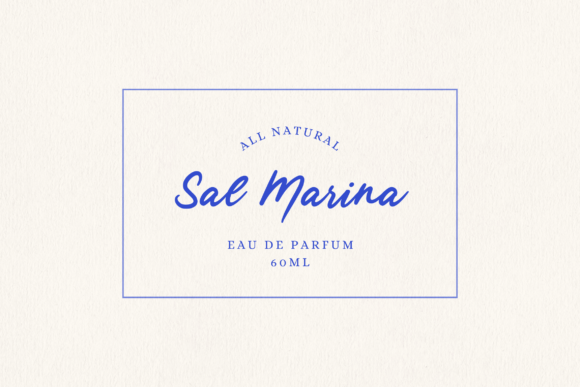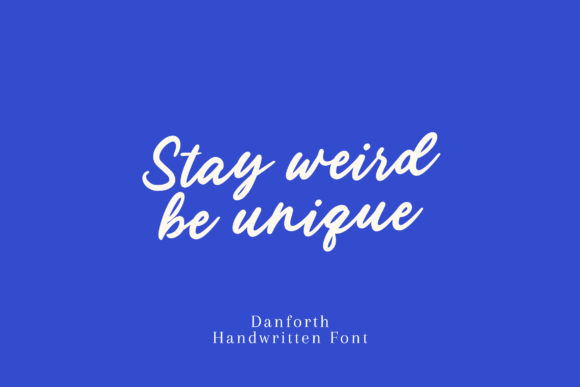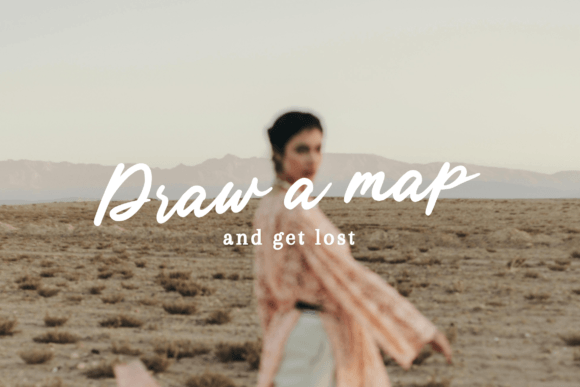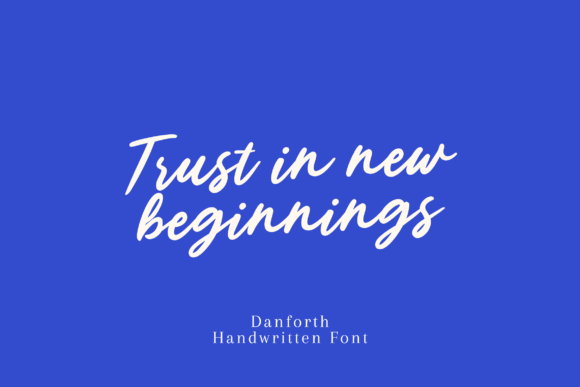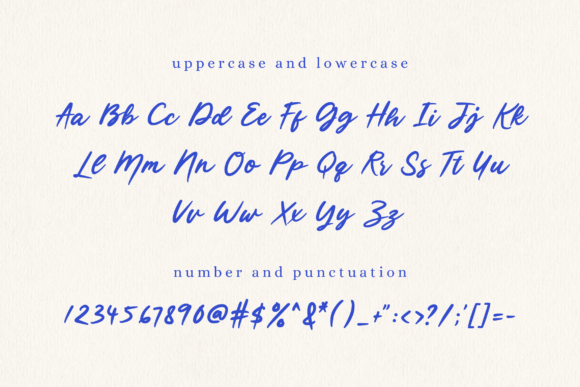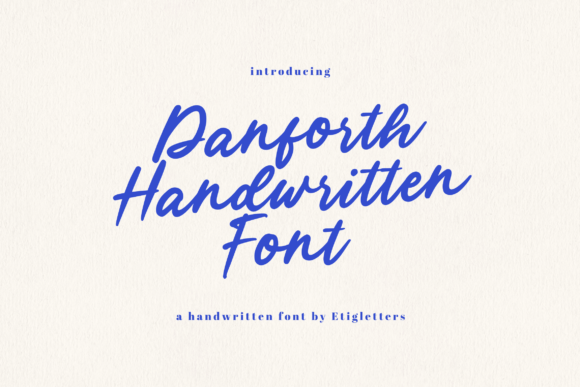
Introducing Danforth Font: The Sweet and Friendly Handwritten Font
Are you a designer or crafter looking for a font that can add a personal touch to your projects? Look no further than Danforth Font! This sweet and friendly handwritten font is perfect for a wide range of designs, from invitations and greeting cards to branding and packaging. With its natural and unique style, Danforth Font is sure to make your projects stand out.
The Characteristics of Danforth Font
Danforth Font is a handwritten font that exudes warmth and friendliness. Its natural and unique style makes it incredibly fitting to a large pool of designs. The font features:
• Handwritten style: Danforth Font has a genuine handwritten look that adds a personal touch to any project.
• Unique character: The font’s unique character makes it perfect for designs that require a distinctive look.
• Natural flow: Danforth Font has a natural flow that makes it easy to read and understand.
What Makes Danforth Font So Versatile?
Danforth Font is an incredibly versatile font that can be used in a wide range of designs. Its natural and unique style makes it perfect for:
• Invitations and greeting cards: Add a personal touch to your invitations and greeting cards with Danforth Font.
• Branding and packaging: Use Danforth Font to create unique and memorable branding and packaging designs.
• Digital and print media: Danforth Font is perfect for both digital and print media, including social media graphics, blog posts, and magazine ads.
The Benefits of Using Danforth Font
There are many benefits to using Danforth Font in your designs. Some of the most significant advantages include:
• Easy to read: Danforth Font is easy to read, making it perfect for designs that require a clear and concise message.
• Unique and distinctive: Danforth Font’s unique character makes it stand out from other fonts, ensuring that your designs are memorable and eye-catching.
• Flexible: Danforth Font can be used in a wide range of designs, from formal to informal, making it a versatile addition to any designer’s toolkit.
How to Use Danforth Font in Your Designs
Using Danforth Font in your designs is easy! Here are a few tips to get you started:
• Pair with other fonts: Danforth Font pairs well with other fonts, making it easy to create unique and visually appealing designs.
• Experiment with colors: Danforth Font looks great in a variety of colors, so don’t be afraid to experiment and find the perfect hue for your design.
• Use in different sizes: Danforth Font is clear and readable in a range of sizes, making it perfect for designs that require a bold statement or a more subtle approach.
In conclusion, Danforth Font is a sweet and friendly handwritten font that is perfect for designers and crafters looking to add a personal touch to their projects. With its natural and unique style, Danforth Font is incredibly versatile and can be used in a wide range of designs. Whether you’re creating invitations, branding, or digital media, Danforth Font is sure to make your projects stand out. So why wait? Give Danforth Font a try today and see the difference it can make in your designs!